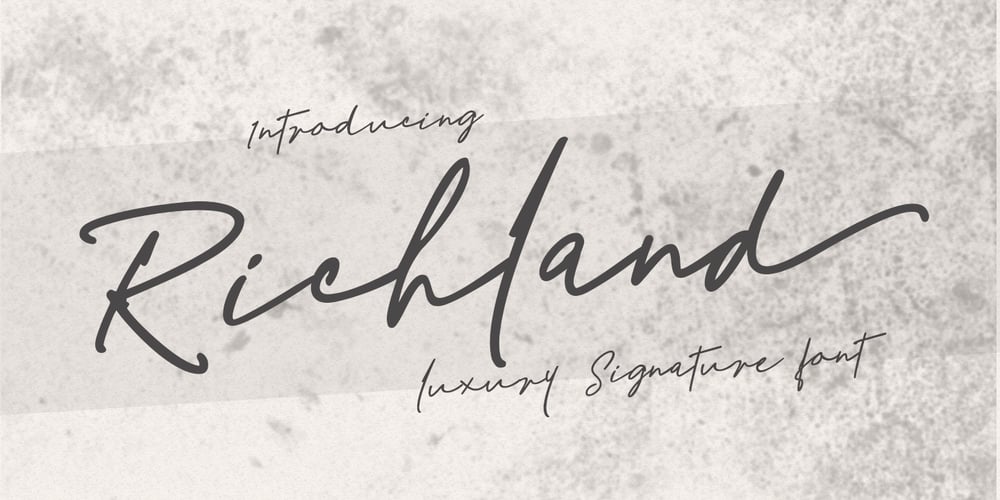
Richland Font Family was designed by Muhammad Rizal and published by MrLetters. Richland contains 1 styles and family package options. Richland is a new and beautiful signature font, created to meet your needs in creating a beautiful and elegant design, this font is special for you. Richland is perfect for branding, wedding invitations, magazines, mugs, business cards, quotes, posters, and more you can use on your big project would be very beautiful. Richland has been equipped with OpenType features and has many glyphs. And of course by having many of these glyphs will be able to choose the letters according to your liking, lots of variations and options for each letter, so you can customize your design choices and also have other languages supported. This font is perfect for use with programs that support OpenType features like Adobe Photoshop Cs / Adobe Photoshop CC, Adobe Illustrator CS / Adobe Illustrator CC, Adobe Indesign and Corel Draw and many more programs that support OpenType, and I’ve also included a special alternative so you can use any program, this font can be used by everyone. if you have any question, please feel free to contact me by email hello.mrletters@gmail.com. Thanks and congratulations designing ๐